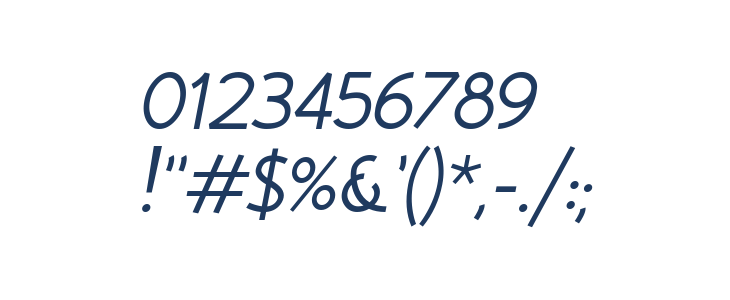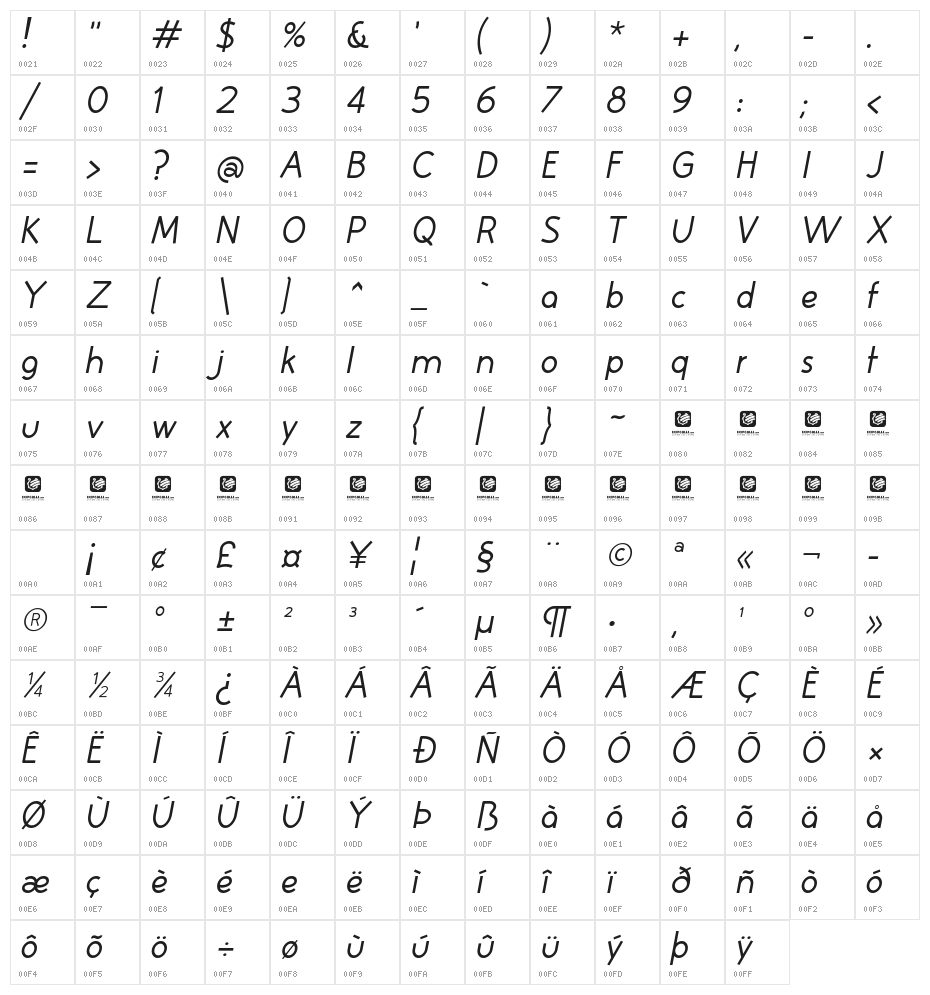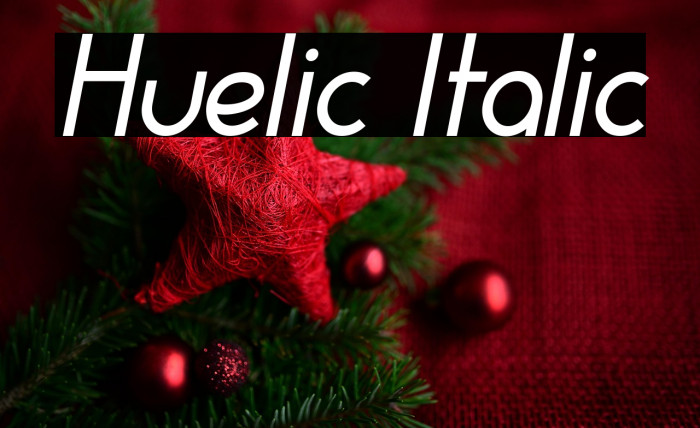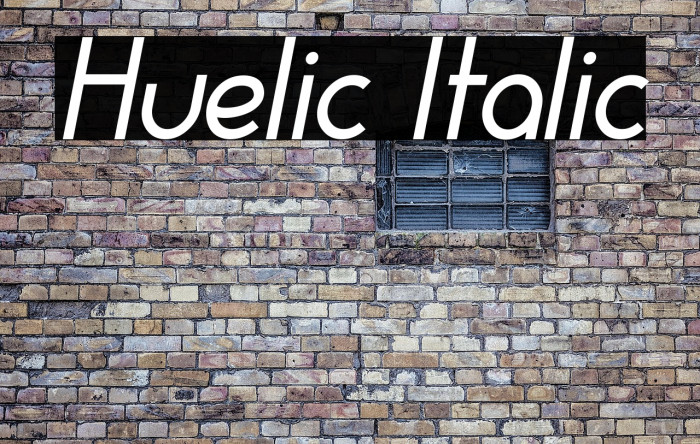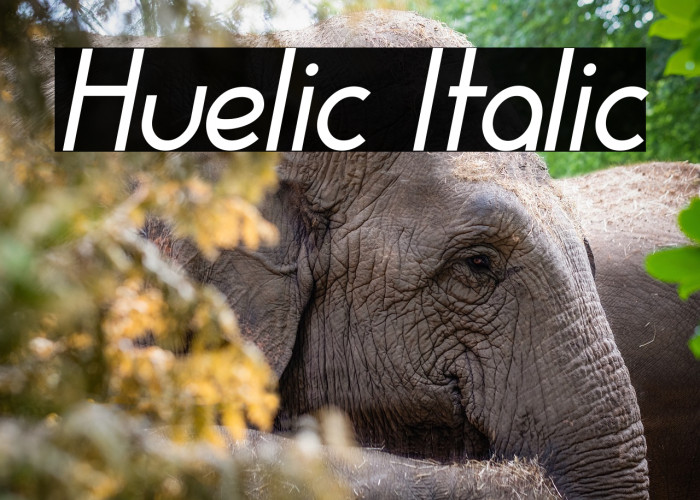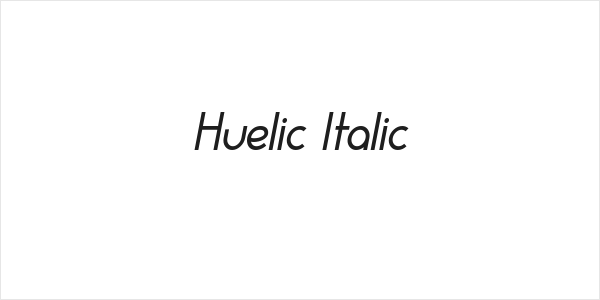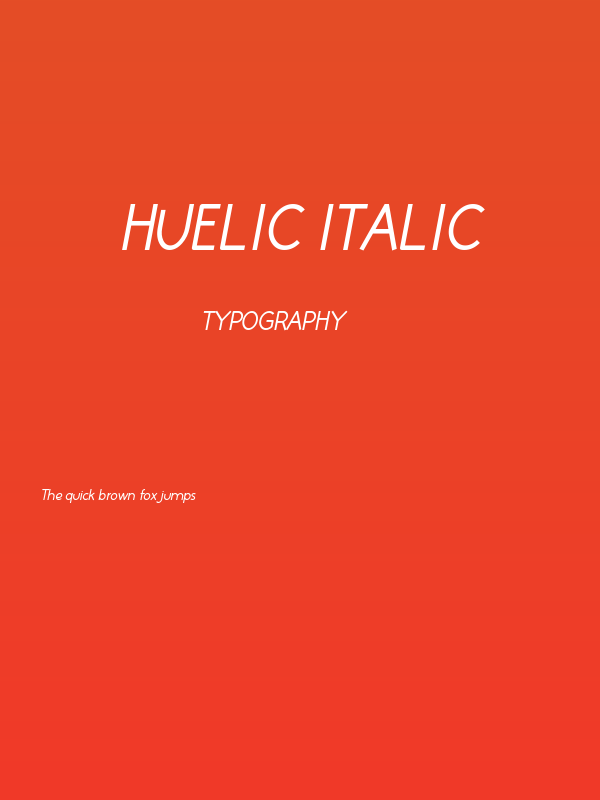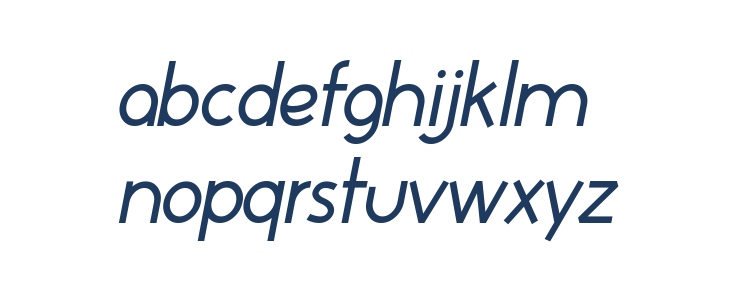
Huelic Italic Font
Huelic Italic Description
This font features a sleek, italicized design that exudes a modern and dynamic feel. The characters are slightly slanted, giving a sense of motion and elegance. The strokes are clean and consistent, with a medium contrast that ensures readability while maintaining a stylish appearance. The font's rounded edges and smooth curves contribute to its contemporary aesthetic, making it suitable for a variety of design applications. The spacing between characters is normal, providing a balanced and harmonious look. This font is versatile, ideal for both digital and print media.
| Proposed Projects | Ideal for branding, advertising, and editorial design projects. |